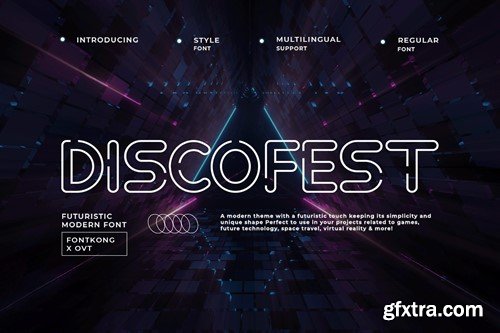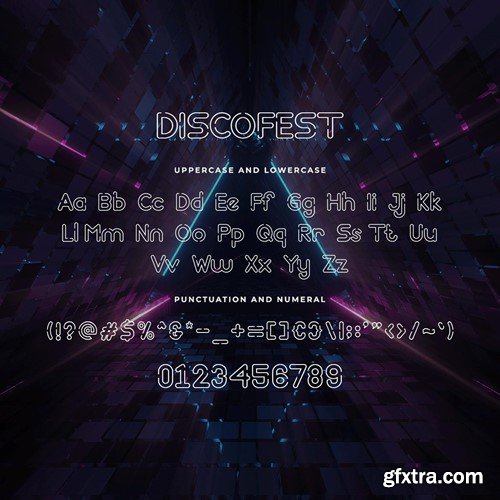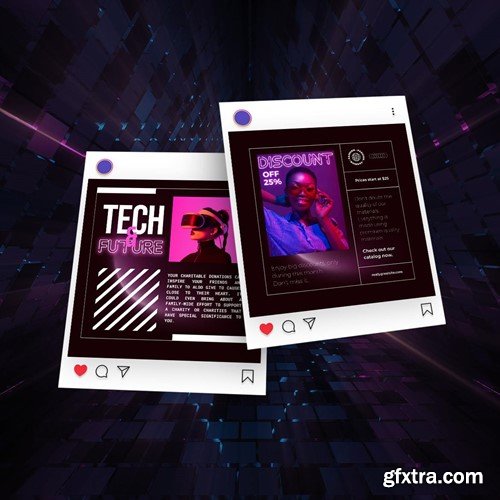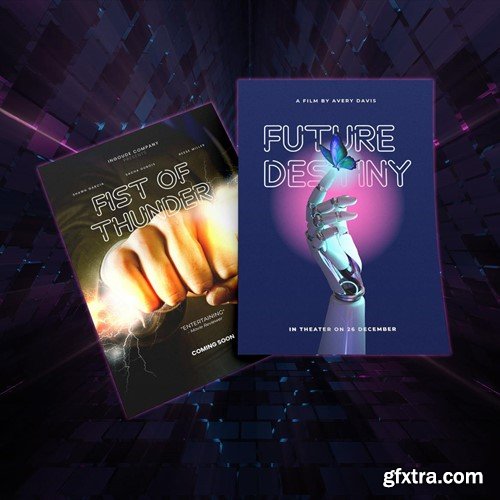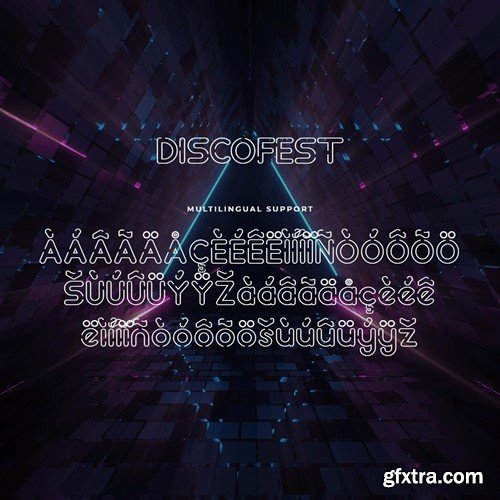
Discofest - Futuristic Modern Font Introducing "Discofest," a futuristic modern font that radiates with vibrant energy and sleek design. Perfect for those looking to infuse their projects with a contemporary and dynamic vibe, Discofest combines clean lines and innovative style to create an unforgettable visual impact. You will receive the font files in TTF, OTF, and WOFF formats Ideal for event posters, music album covers, tech branding, futuristic websites, and neon-inspired graphics, Discofest’s bold and stylish characters ensure your text stands out. Each letter is expertly crafted to balance readability with a distinctive, cutting-edge look. Discofest includes a complete set of uppercase and lowercase letters, numerals, punctuation marks, and special characters, offering comprehensive versatility for various design applications. Its modern, futuristic aesthetic makes it an excellent choice for designers aiming to push the boundaries of creativity and innovation. Bring the future to your designs with Discofest, a typeface that illuminates your work with its unique and electrifying charm.